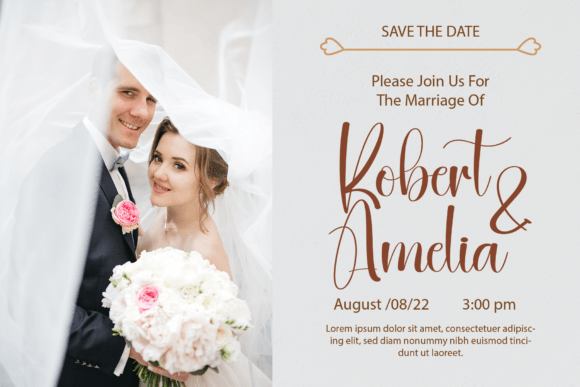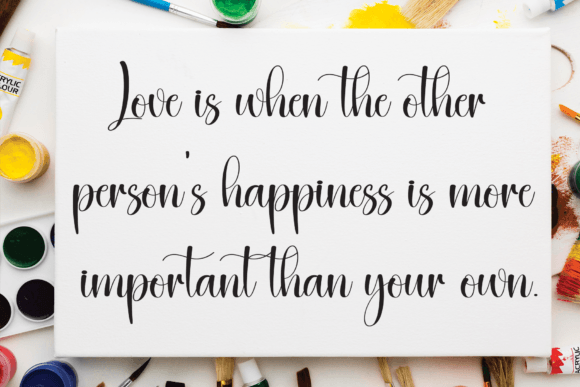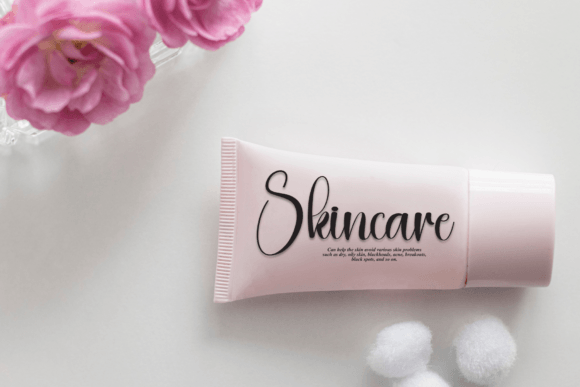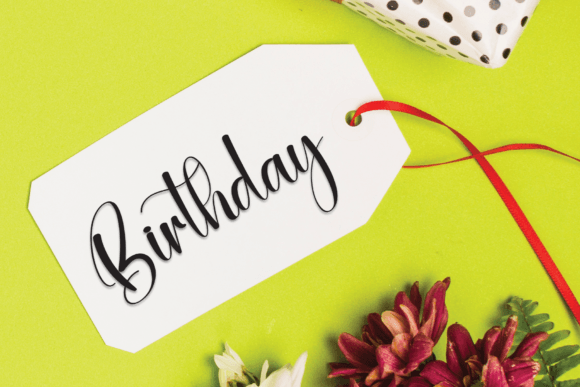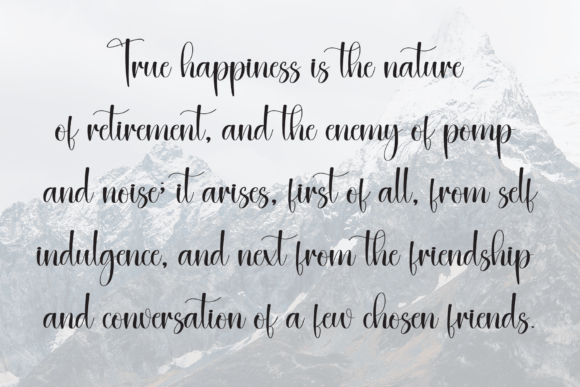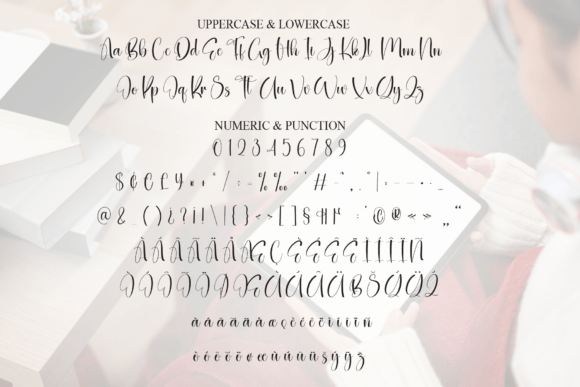
The Magic of Book Digital Font: A Designer’s Delight
Have you ever been in the middle of a design project, and suddenly, you just can’t seem to find the right font? I recall a particularly stressful holiday season when I was working on a festive card design for a client. The project required a font that was both elegant and playful, but everything I tried seemed to fall flat. That’s when I stumbled upon Book Digital, a charming handwritten script font that instantly elevated my design. In this article, I’ll share my experience with Book Digital, its features, and how to make the most of it in your designs.
A Personal Review: What I Love About Book Digital
Book Digital has quickly become one of my go-to fonts for holiday and seasonal projects. Here’s what I love about it:
- ✨ Flowing, elegant curves that give a warm, joyful feel
- ✅ Perfect for adding a personal, festive touch to designs
- 🎉 Highly versatile and works well in various design contexts, from invitations to holiday cards
- 👍 Easy to read, even in smaller sizes
While Book Digital is an excellent font, it’s not without its quirks:
- 🤔 May not be suitable for very formal or corporate designs, as it has a distinctly festive feel
- ⚠️ Some characters, like the uppercase letters, can be a bit ornate and may not work well in all design contexts
The Story Behind Book Digital
Book Digital was designed with the intention of capturing the warmth and joy of handwritten script fonts. The designer aimed to create a font that would be perfect for holiday cards, invitations, and other seasonal projects. With its flowing curves and elegant lines, Book Digital has become a popular choice among designers and crafters.
| What makes Book Digital unique? | Book Digital’s unique blend of elegance and playfulness makes it perfect for festive and seasonal designs. |
| Is Book Digital suitable for body text? | While Book Digital is easy to read, it’s best suited for headings and titles rather than body text. |